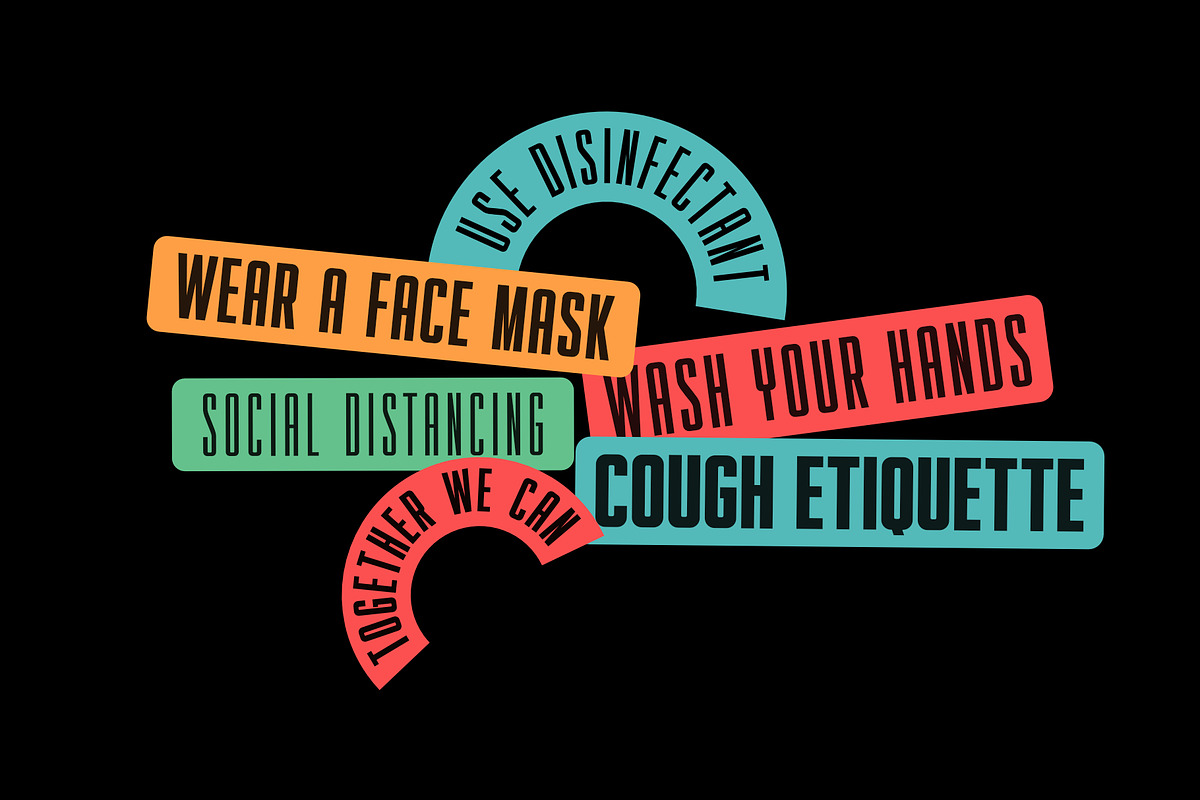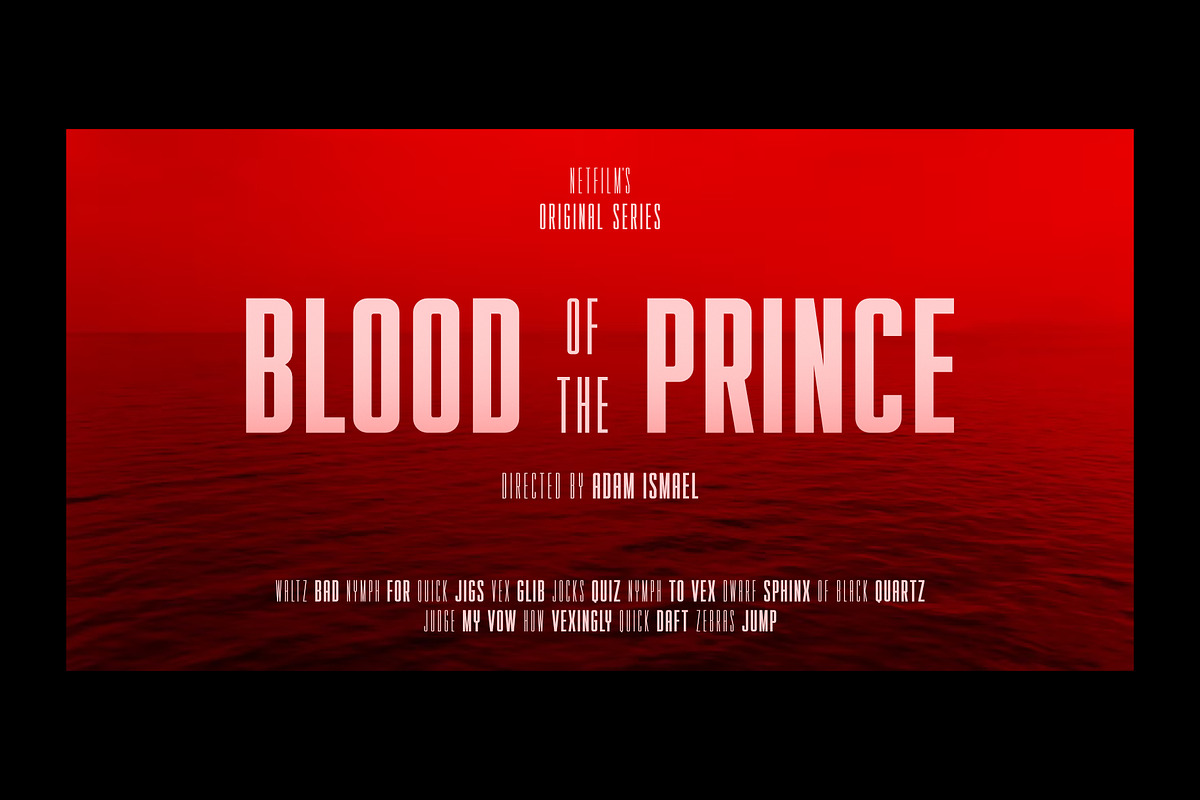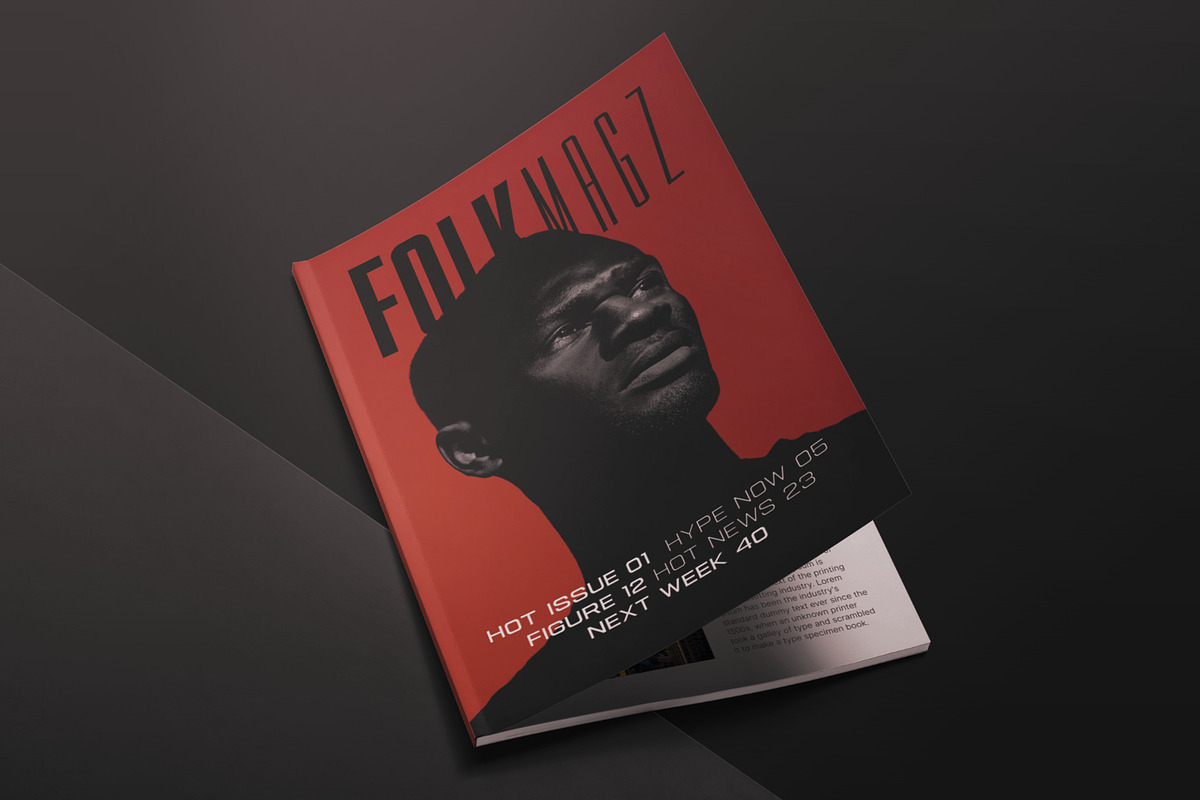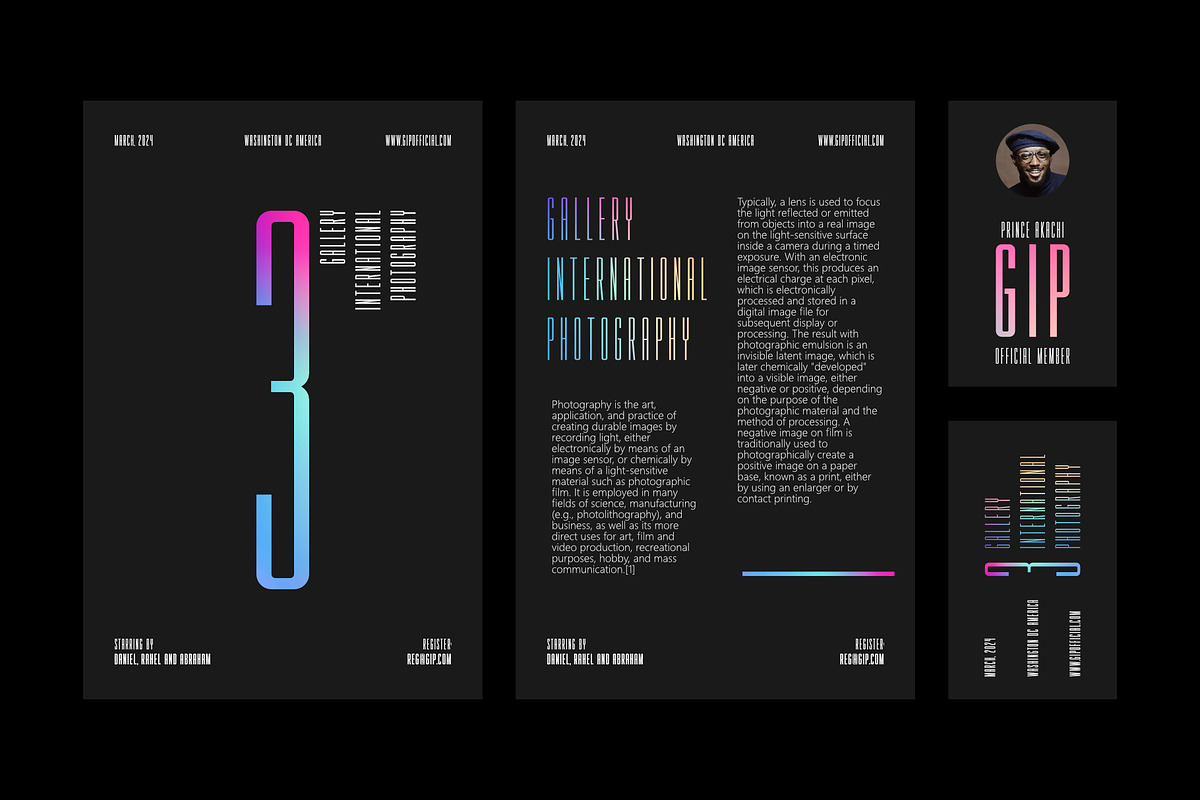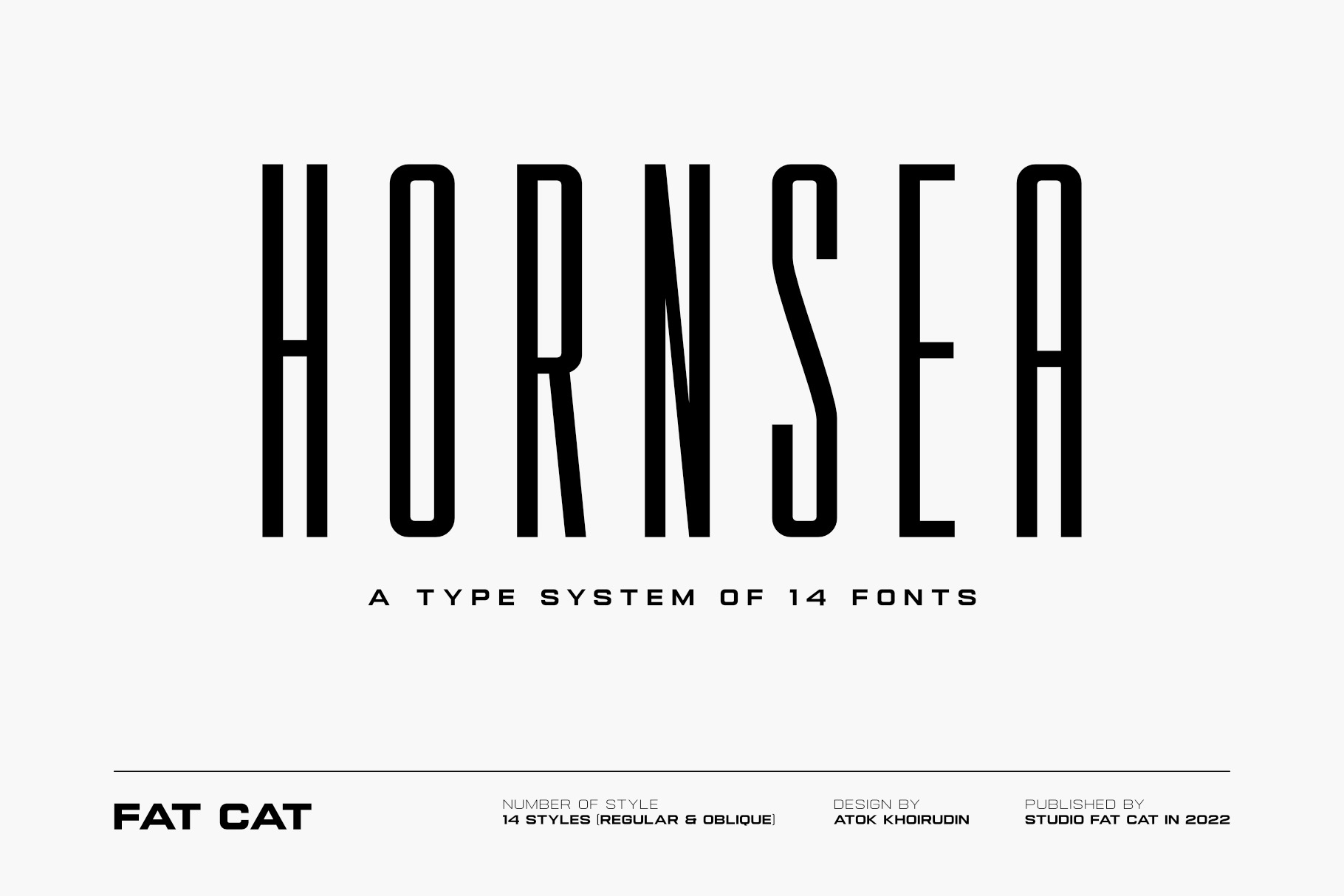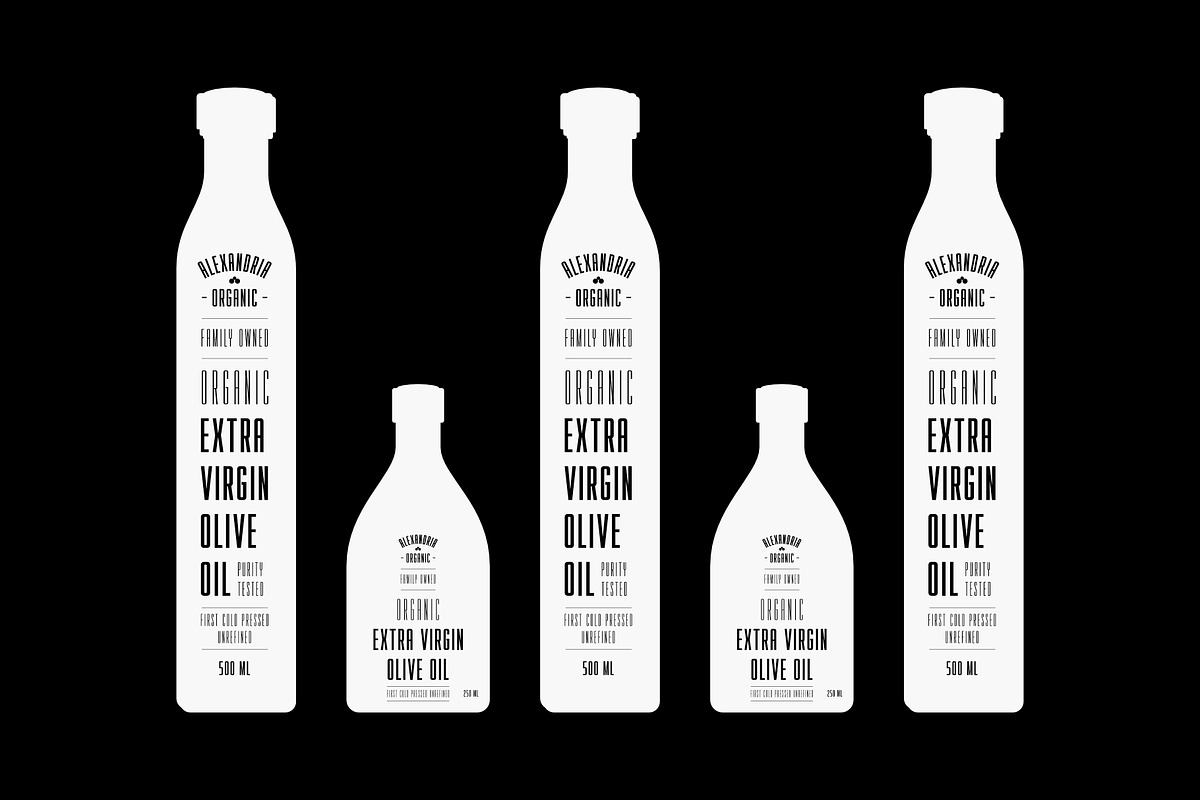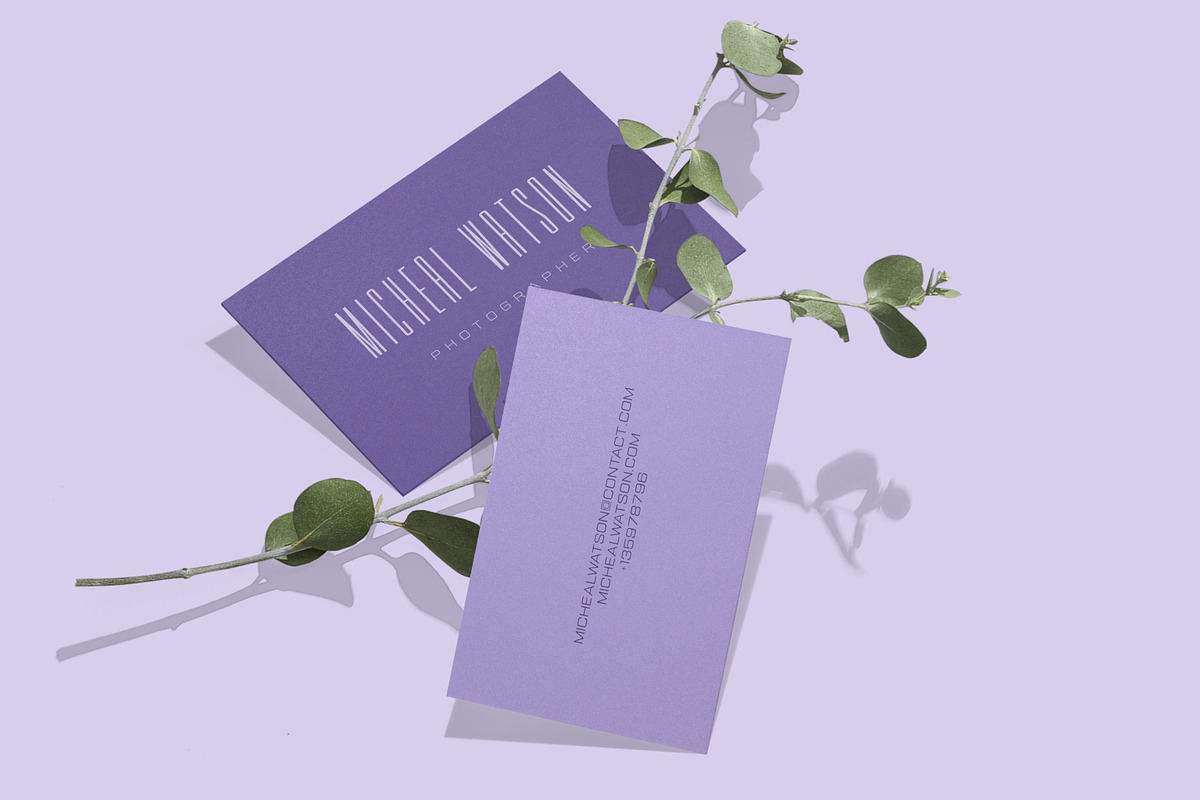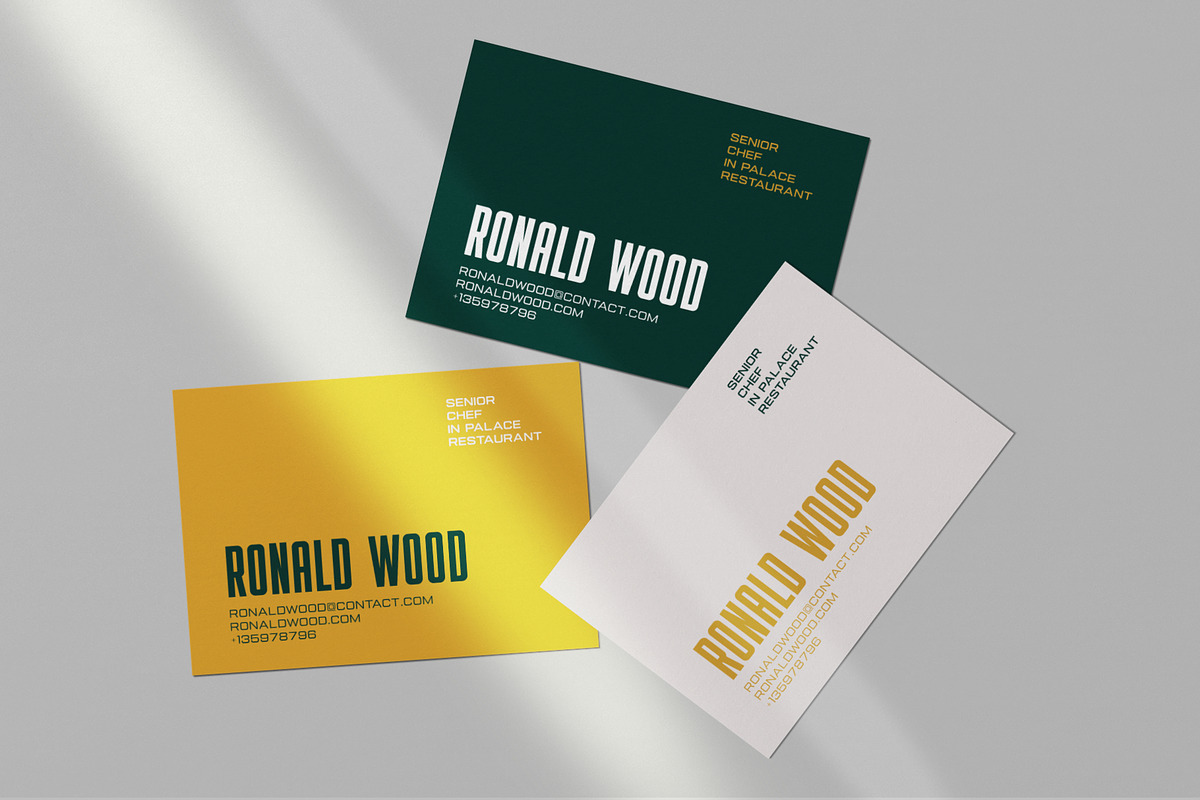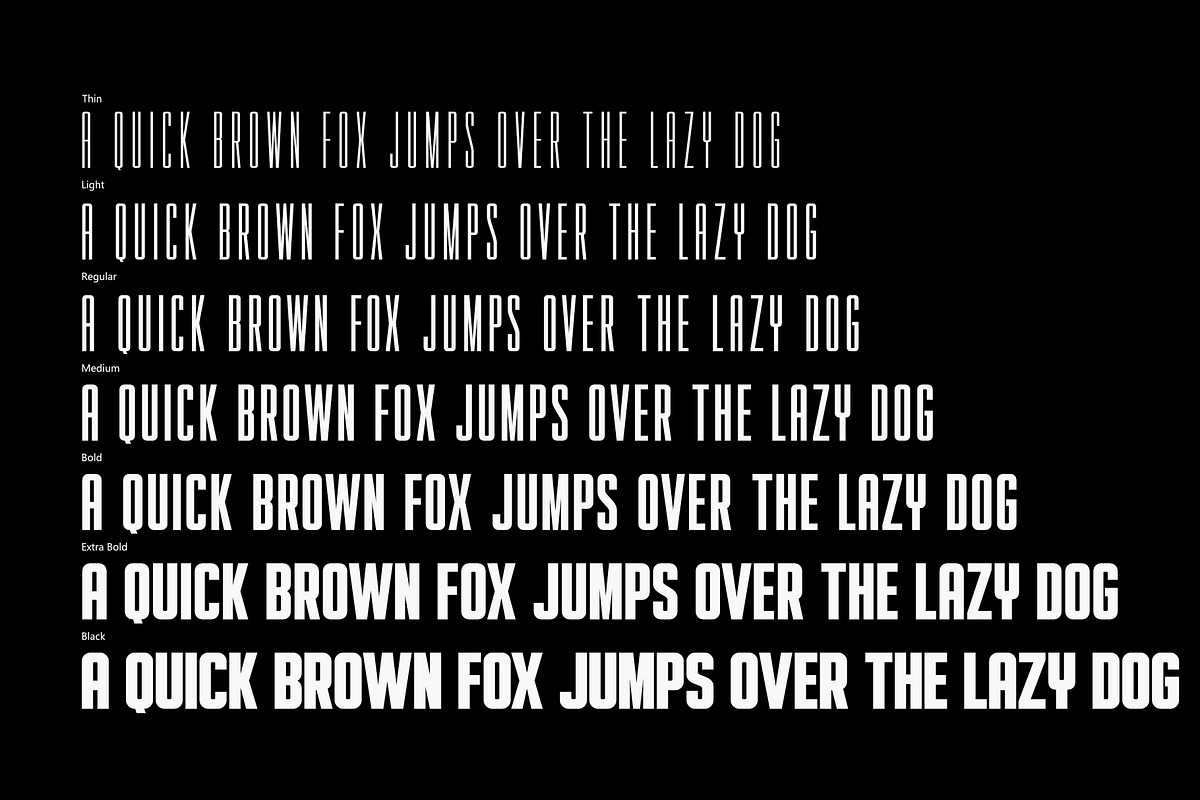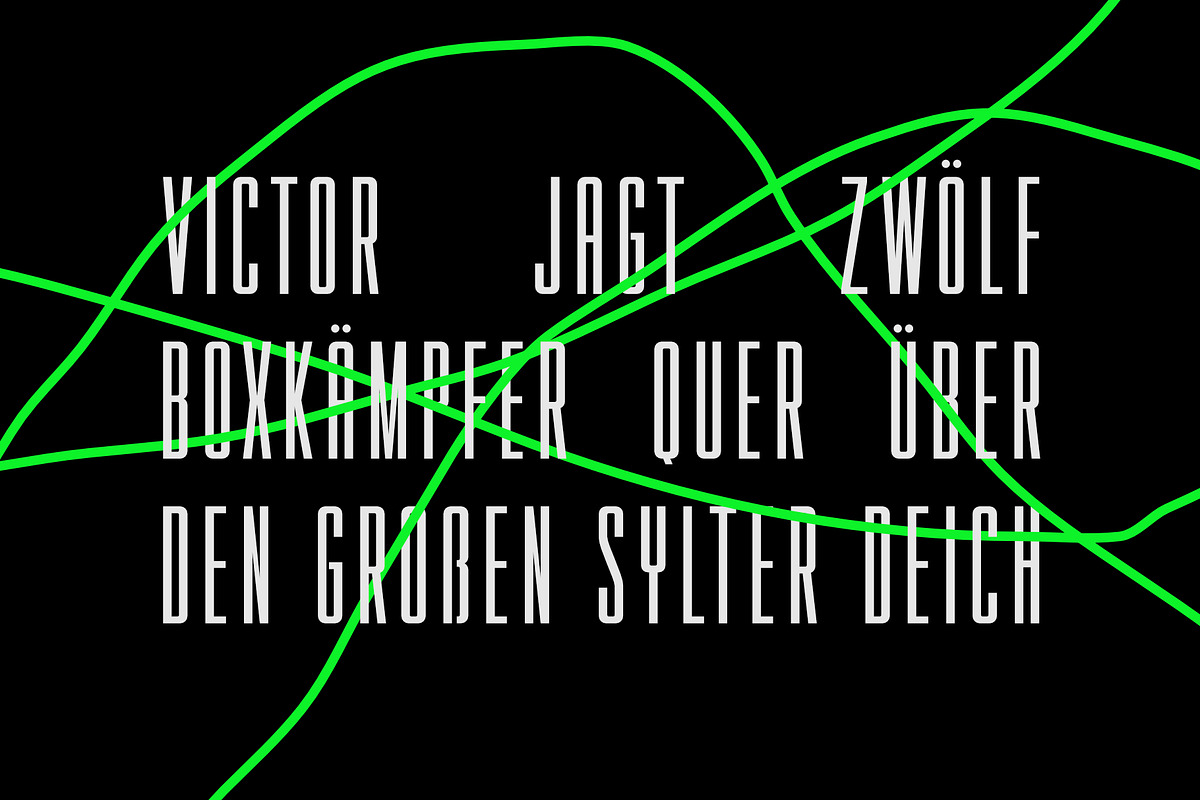
Hornsea FC Modern Vintage Logo Font
Hornsea FC is a modern, minimal sans serif font family that blends sleek geometric design with subtle vintage vibes and a touch of luxury. It’s built for bold branding, clean logos, and smart, forward-thinking design—perfect for everything from fashion labels to tech startups.
Inspired by the precision of engineering and the spirit of innovation, Hornsea FC brings a refined, technical edge to any creative project. Whether you're crafting a futuristic logo tech identity or giving a brand that premium, luxurious feel, this font delivers with style and clarity.
From modern technology brands to elevated branding systems, Hornsea FC is your go-to font family for designs that demand confidence, creativity, and timeless sophistication.